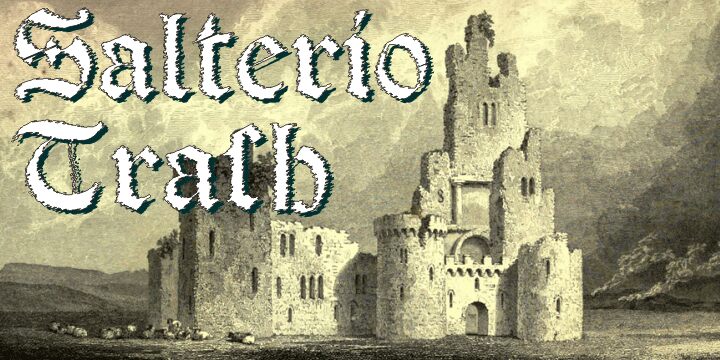
Salterio Trash by Paulo W of Intellecta Design is a free distressed medieval blackletter font with a raw, splintered finish. Its broad capitals and tightly drawn lowercase forms carry sharp wedges, broken edges, and uneven ink-like streaks. The texture feels deliberately unruly.
Dark folklore and underground music give this lettering its clearest territory, especially on album artwork, gig posters, and dark fantasy game graphics. Its damaged manuscript character also suits horror publishing and medieval-themed events, where the letters can become part of a scorched, weathered world rather than neutral text.